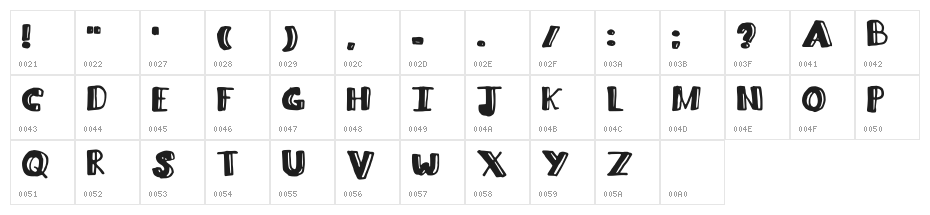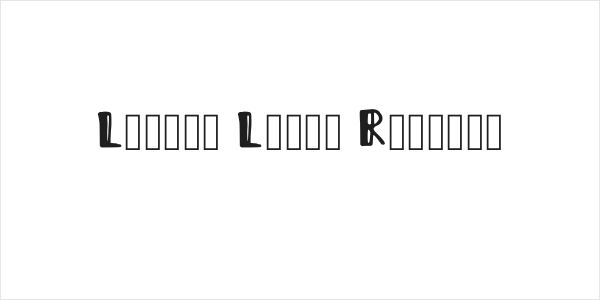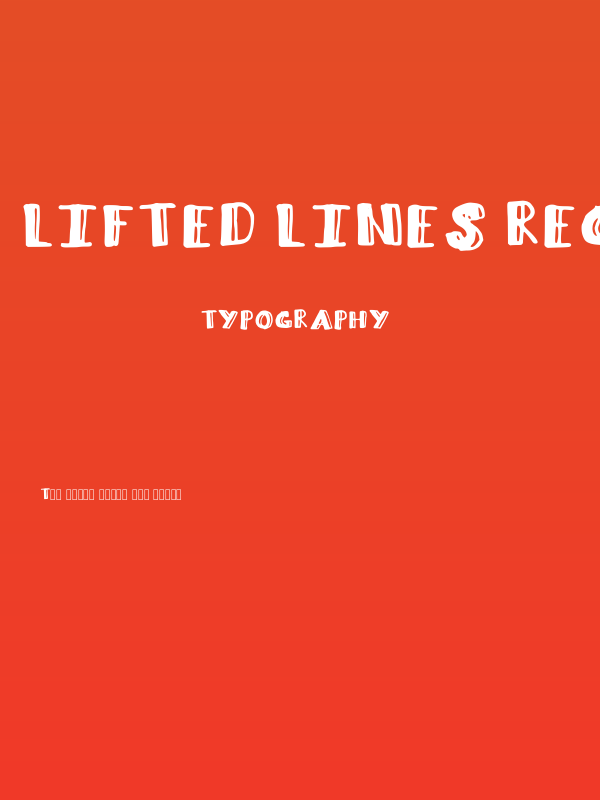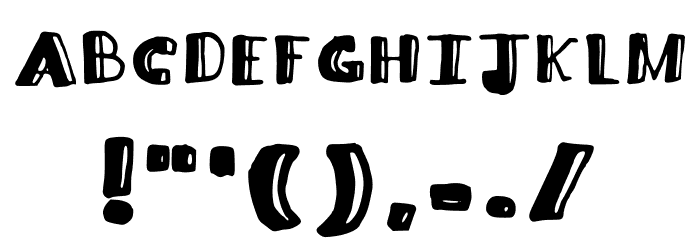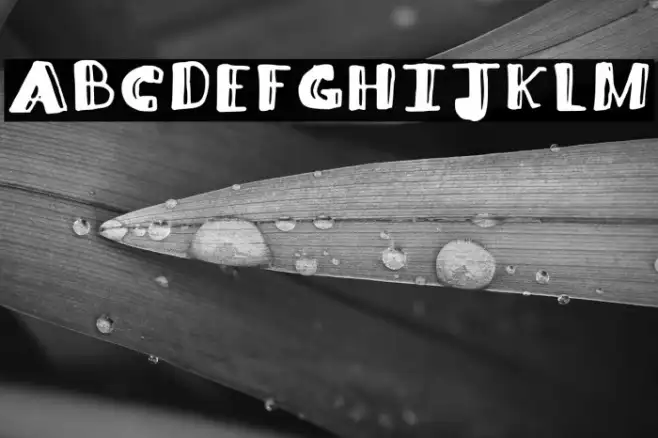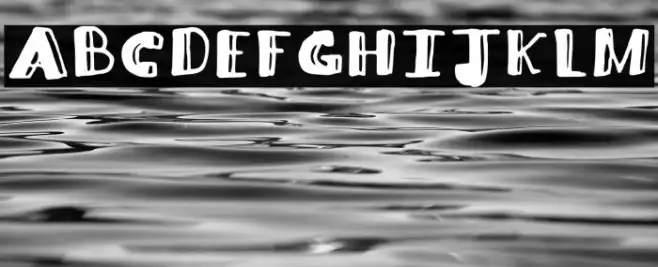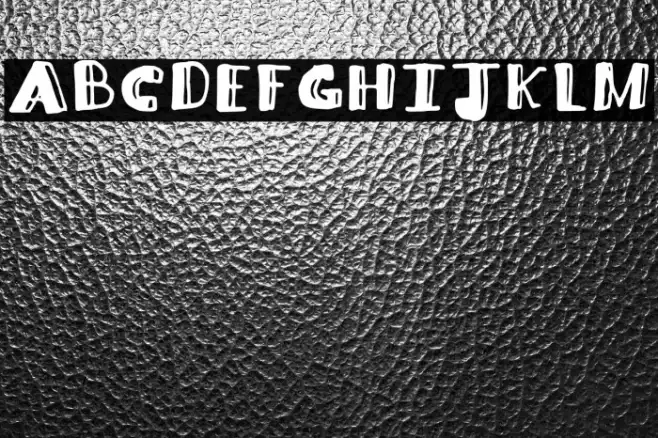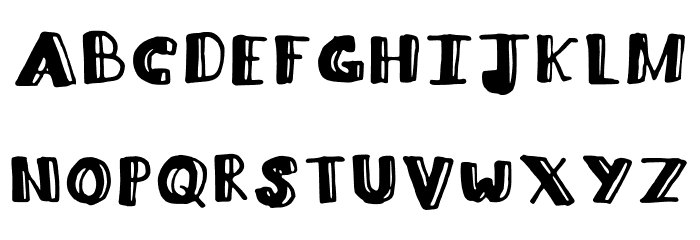
Lifted Lines Regular Font
Lifted Lines Regular Description
This font features a bold and playful design with a hand-drawn appearance. The characters have a slightly irregular shape, giving them a whimsical and artistic feel. The strokes are thick and uneven, creating a dynamic and energetic look. The font maintains a consistent height across all characters, but the width varies, adding to its quirky charm. The overall style is reminiscent of a casual, handwritten script, making it suitable for creative and informal projects. The font includes a full set of uppercase and lowercase letters, numbers, and a selection of punctuation marks.
| Overall Style | Playful, Artistic, Hand-drawn |
| Use Case | Headlines, Posters, Creative Branding |
| Proposed Projects | Ideal for children's book covers, playful posters, greeting cards, and creative branding. |